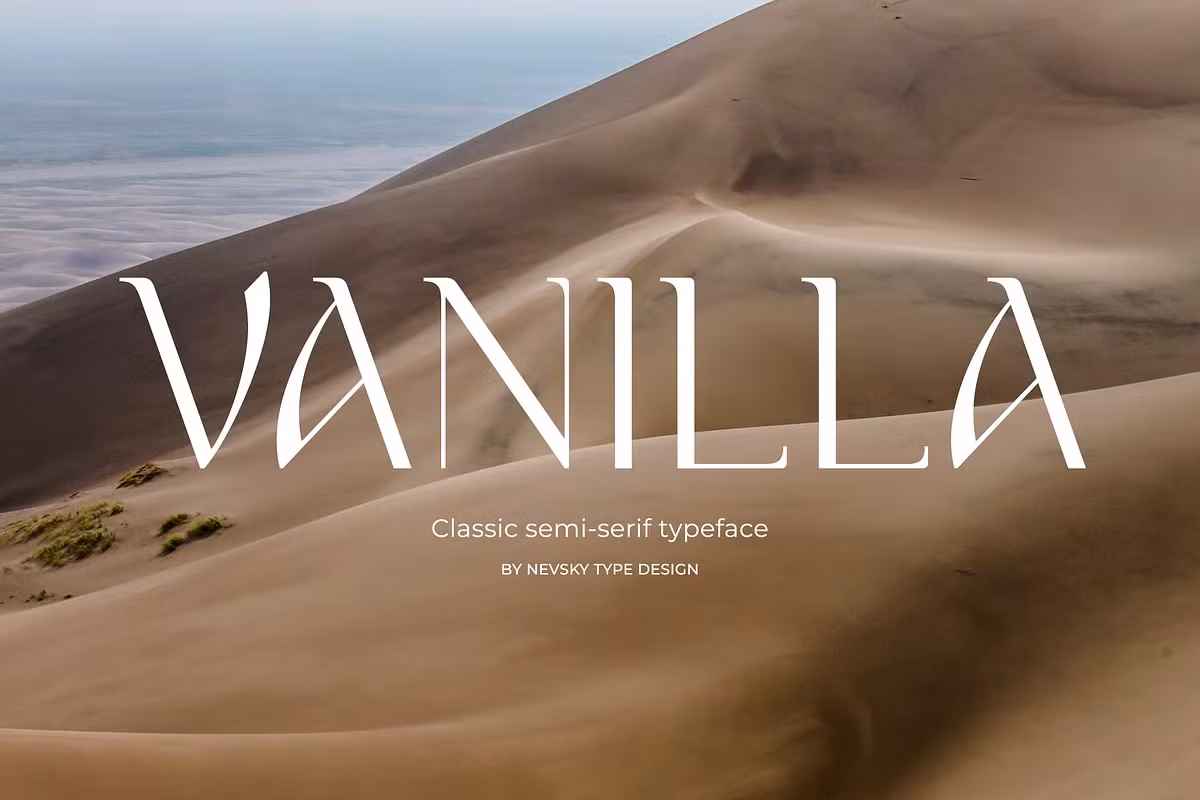
NT VANILLA Font Free Download is a soft and modern serif typeface that exudes elegance and subtle charm. With its smooth curves, gentle contrast, and refined letterforms, NT VANILLA is perfect for branding, editorial layouts, wedding invitations, packaging, and minimalist designs.
Whether you're crafting a feminine logo, a high-end magazine spread, or stylish social media graphics, NT VANILLA adds a touch of class and professionalism without overpowering the design. Its clean and versatile aesthetic makes it a reliable choice for both print and digital applications.